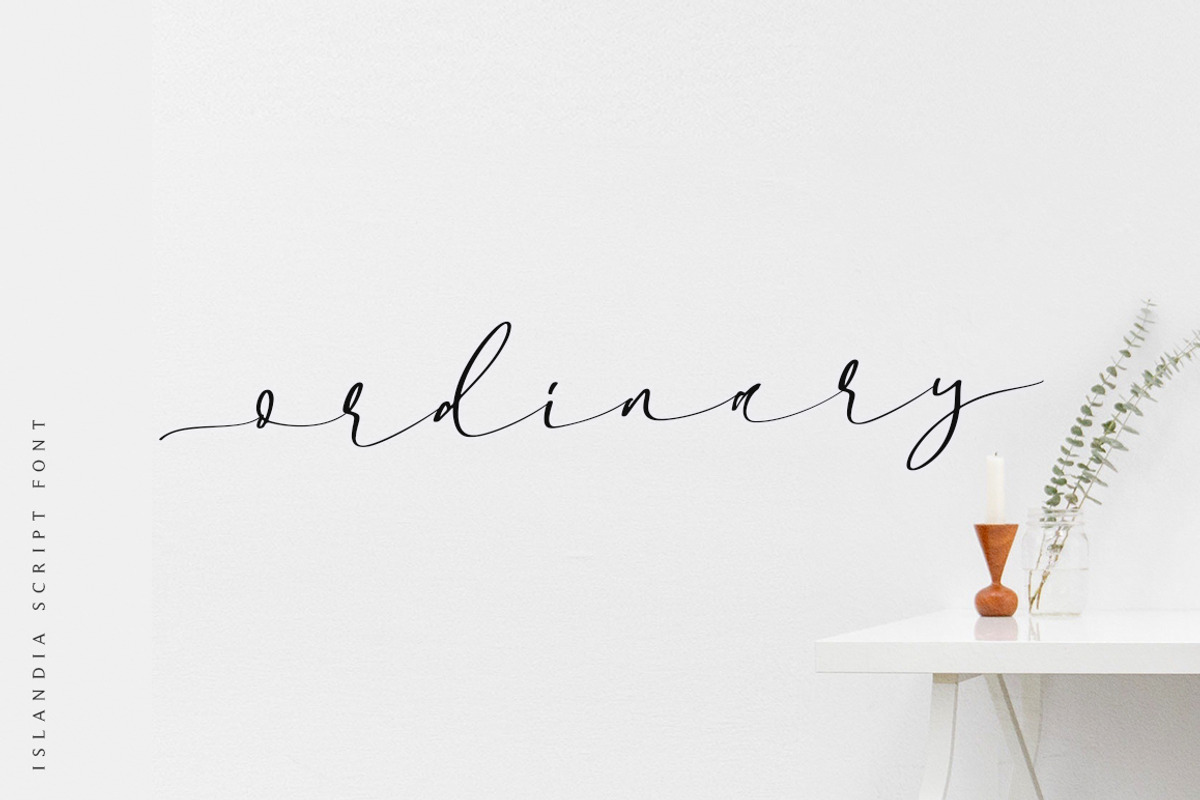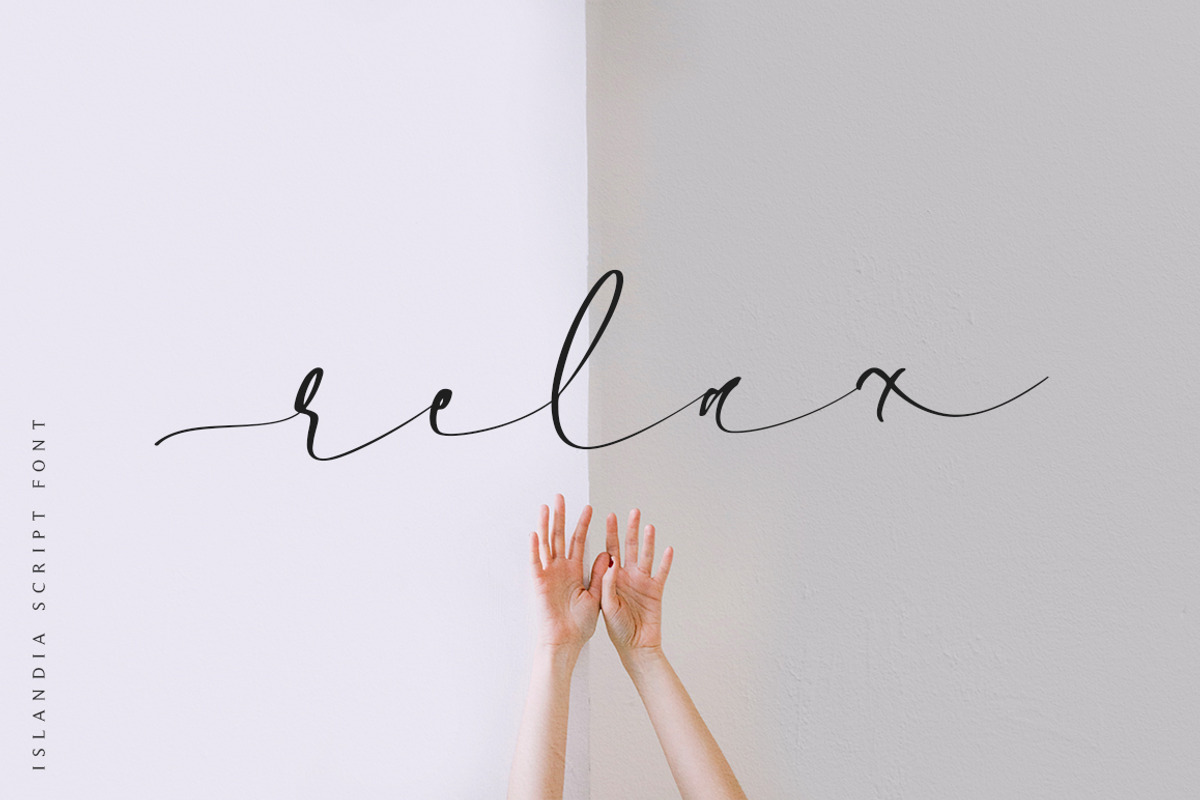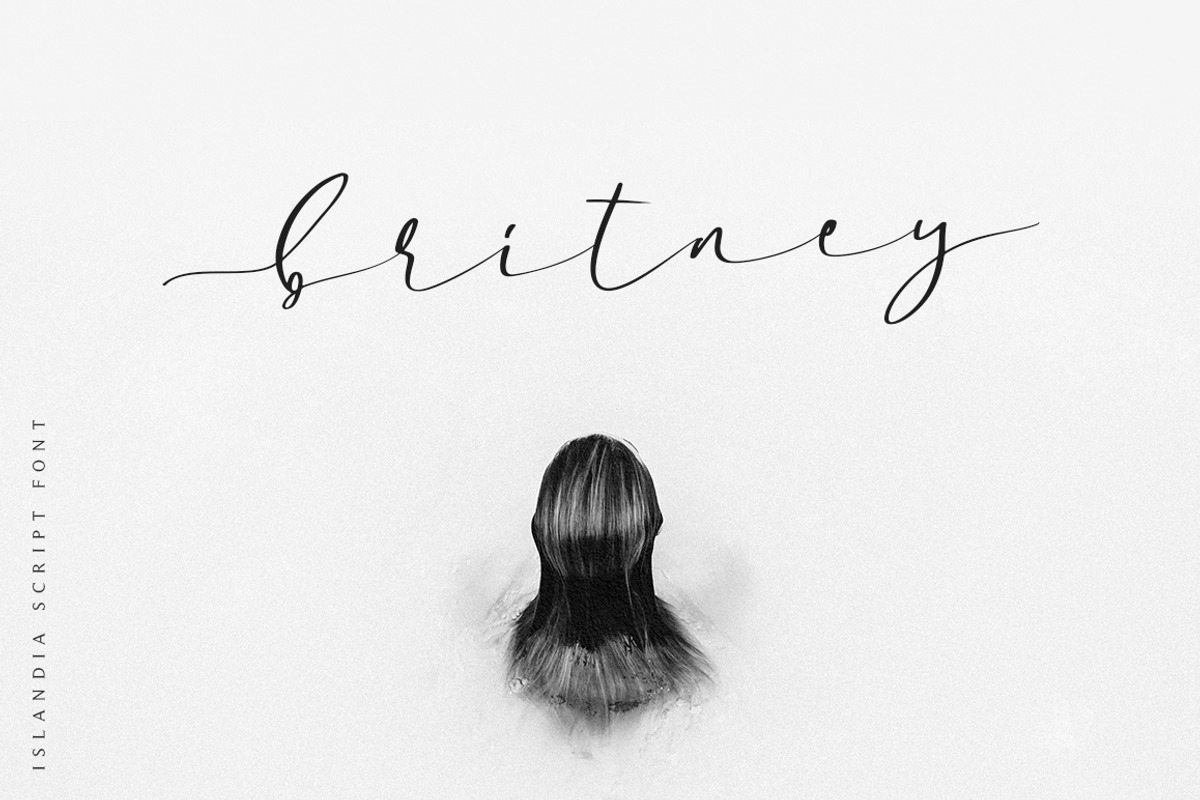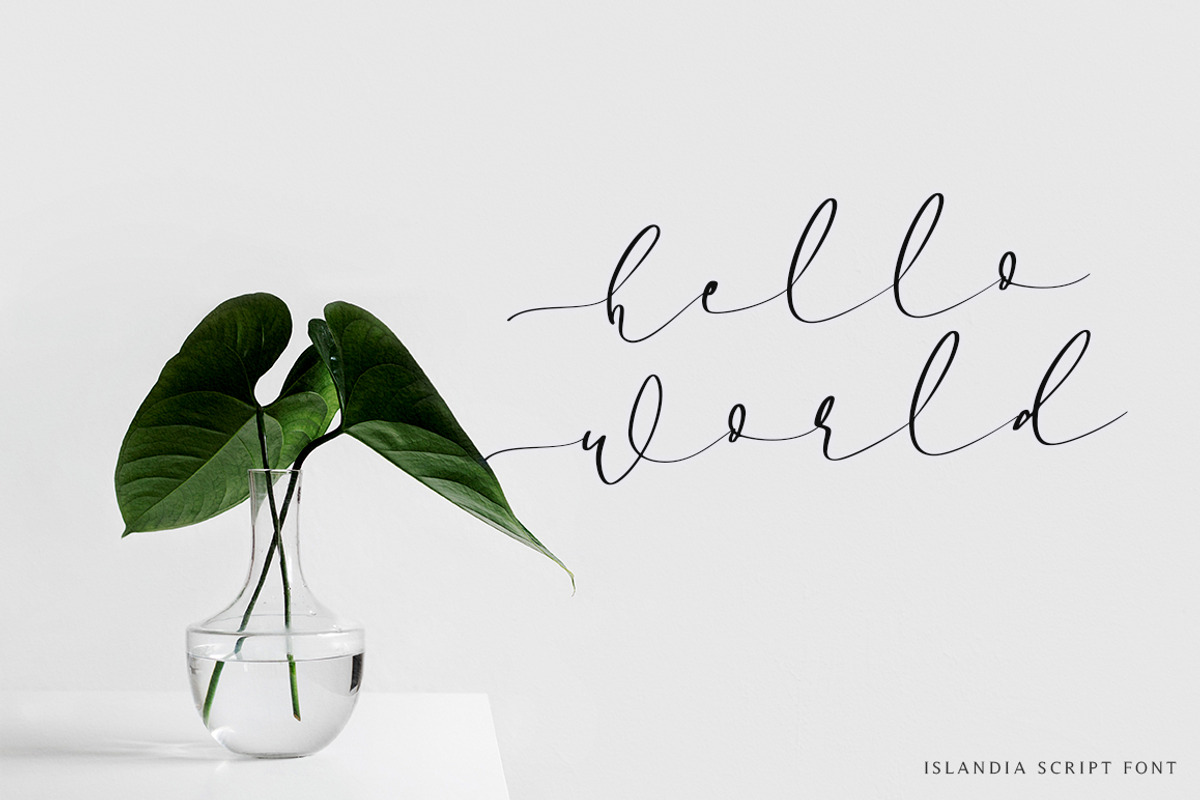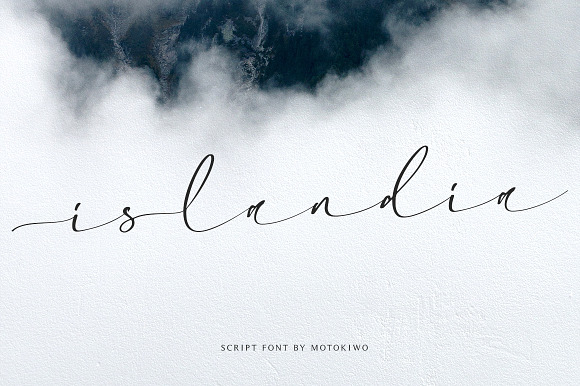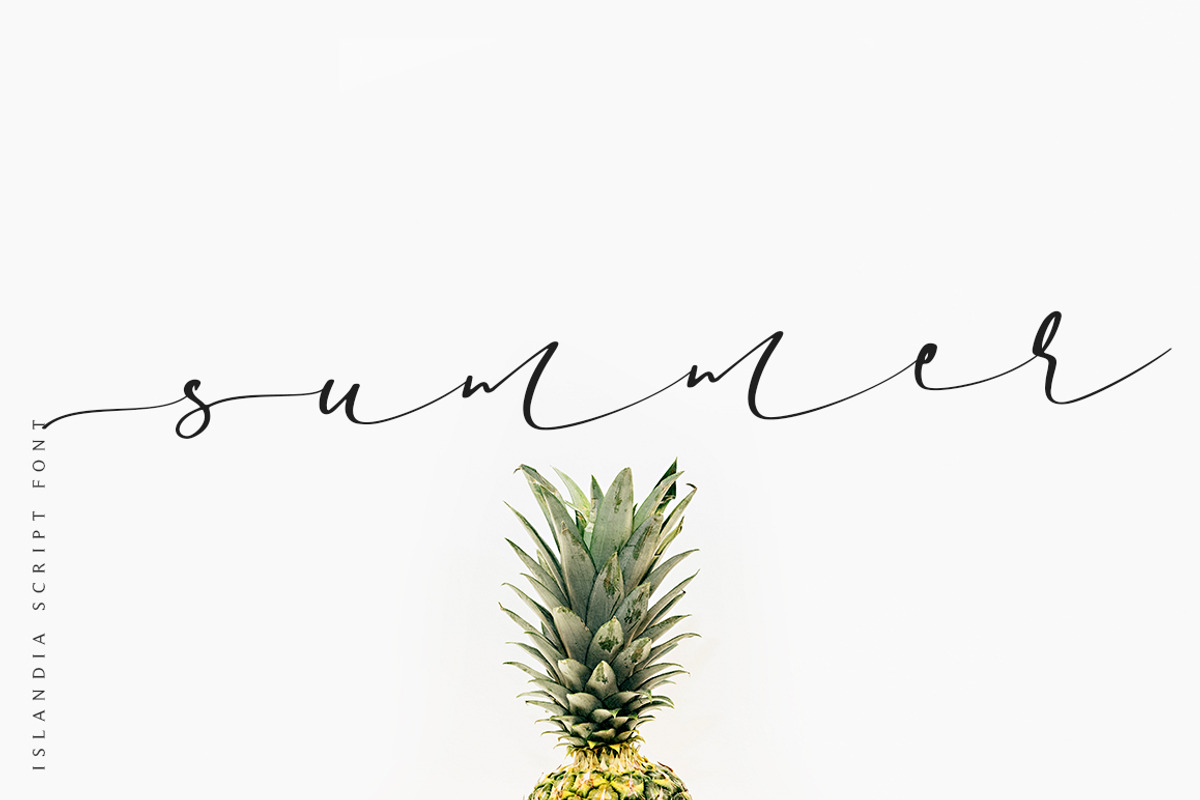
Islandia - Modern Font
Islandia is simple script font with wide characters. It's relaxing font and easy to use, you don't need any design software to access all characters. Islandia doesn't have uppercase, the uppercase replaced with lowercase that contains tails or swash in the front.
Standard multilingual characters, numeral and punctuation included.
- Islandia doesn't have uppercase, the uppercase replaced with lowercase that contains tails or swash in the front.
- Islandia is simple script font with wide characters.
- It's relaxing font and easy to use, you don't need any design software to access all characters.
- Islandia doesn't have uppercase, the uppercase replaced with lowercase that contains tails or swash in the front.
Why Islandia - Modern Font is worth a look
Islandia - Modern Font by Motokiwo fits naturally into Branding, posters, packaging, typography.